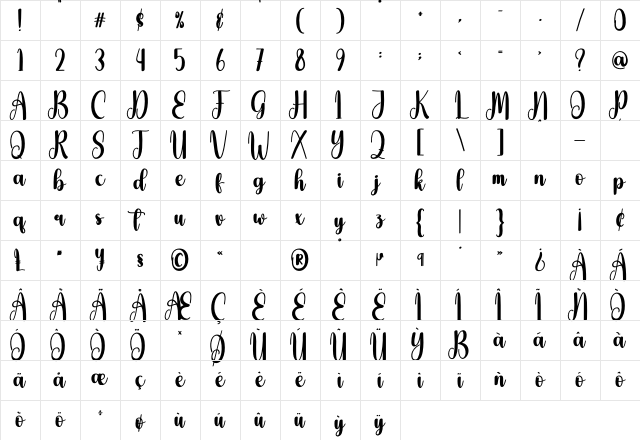
Nightlight Regular Free Font
Nightlight Regular
Design Context for Nightlight
Nightlight is a composed and adaptable typeface that performs quietly and consistently across a wide range of design contexts. Its slender proportions lend an understated elegance to any composition.